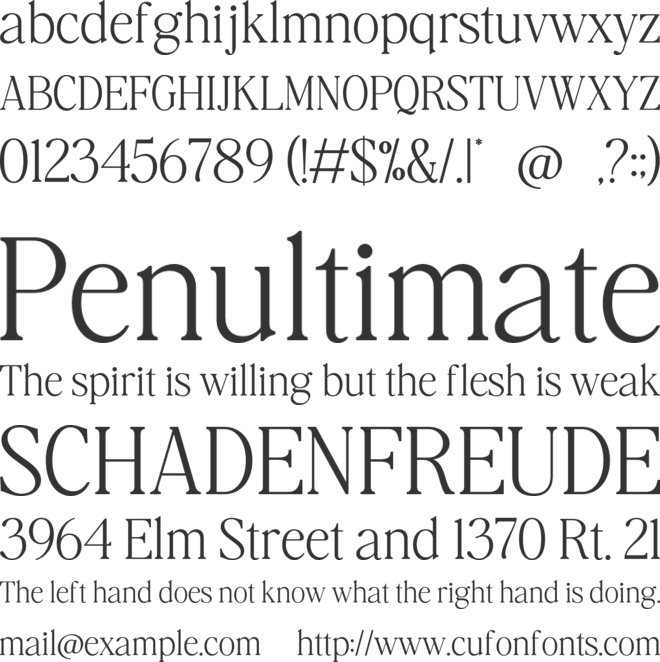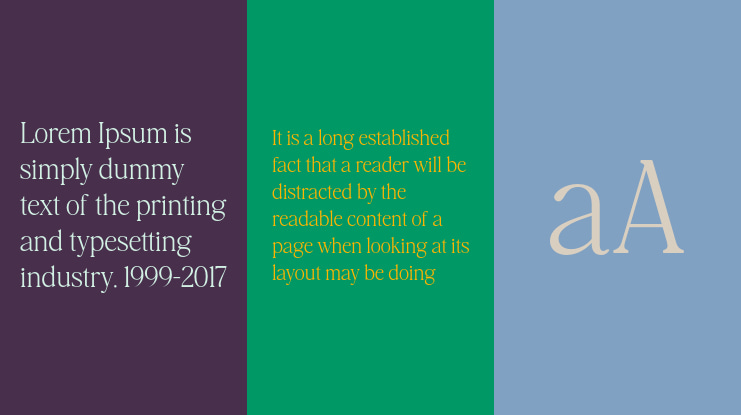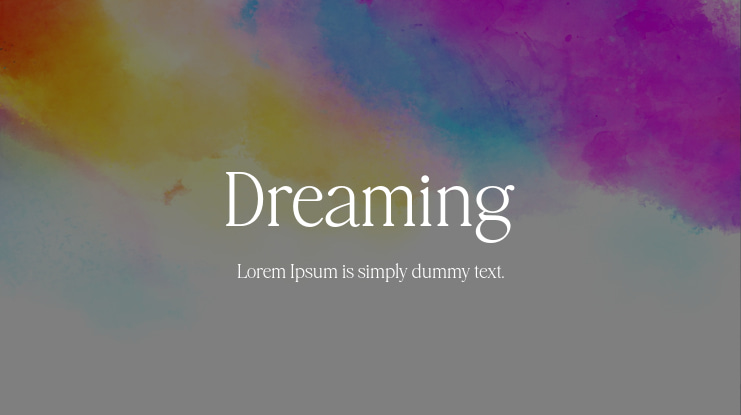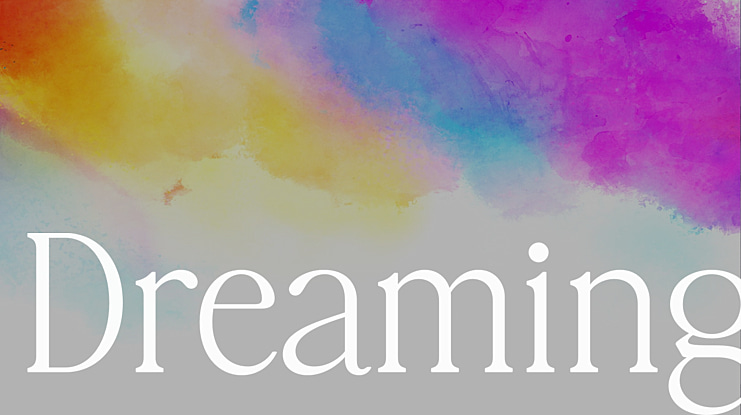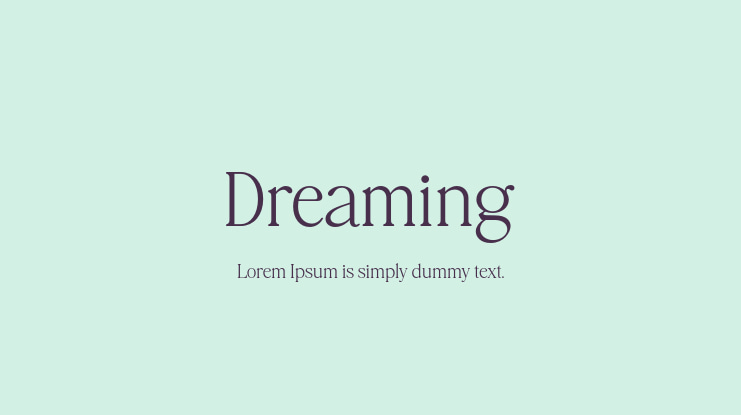
Dreaming Font
Brandsemut
It’s a modern ligature serif typeface with elegant style, best used as a display for headings, logos, branding, magazines, product packaging and invitations. Dreaming come with clean lines and smooth curves give any project an extra touch of class.